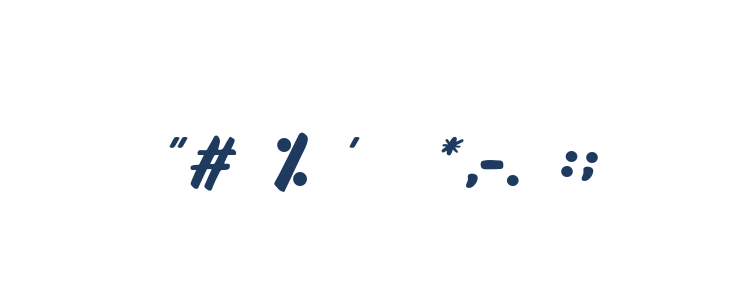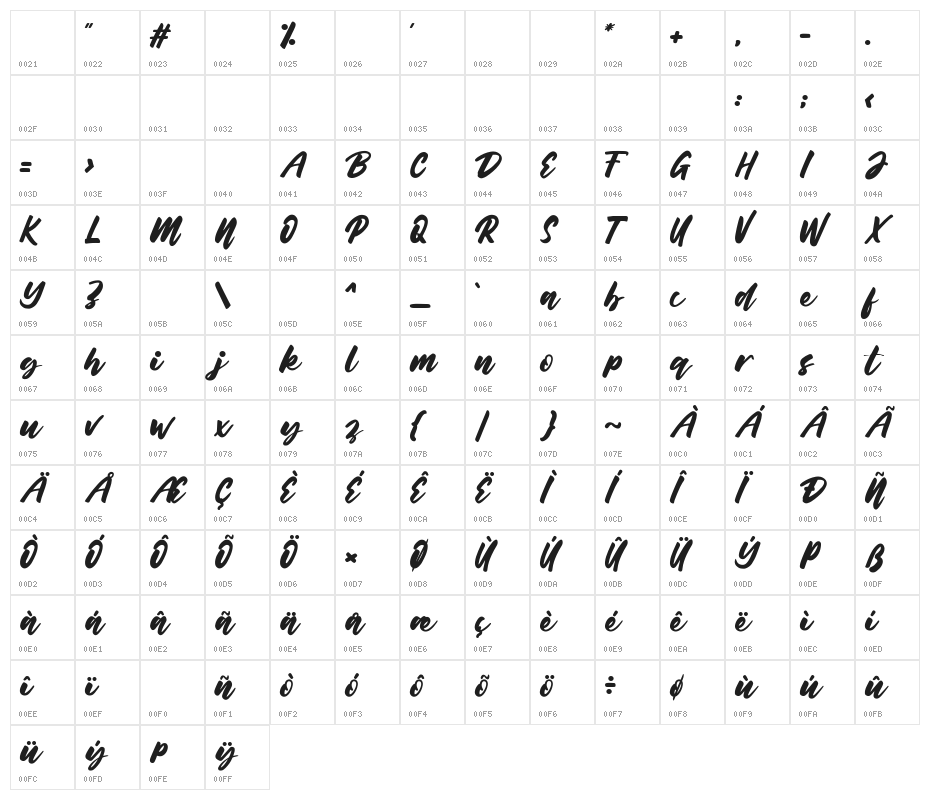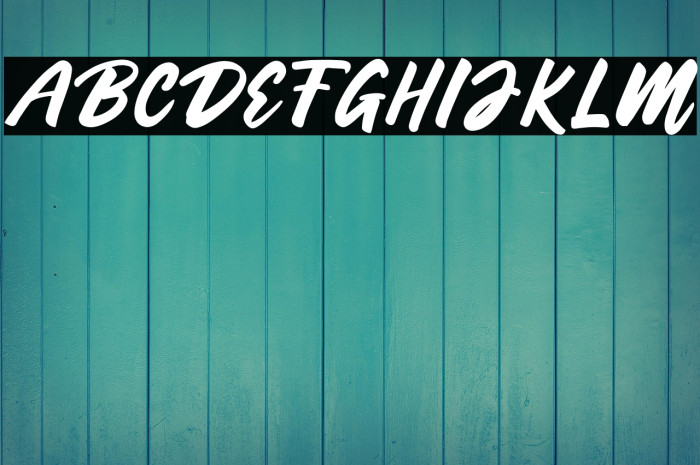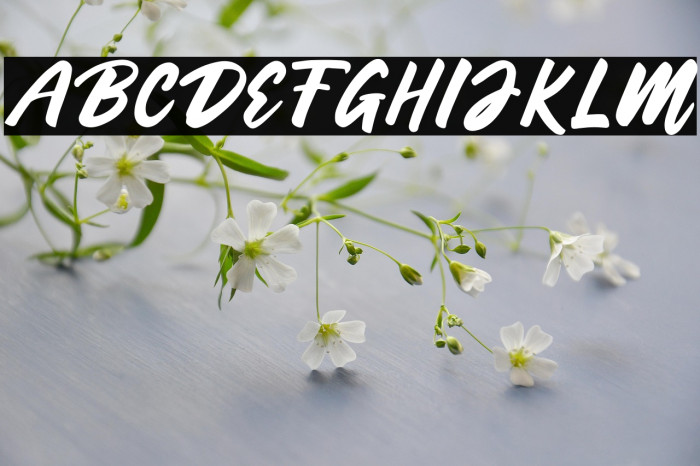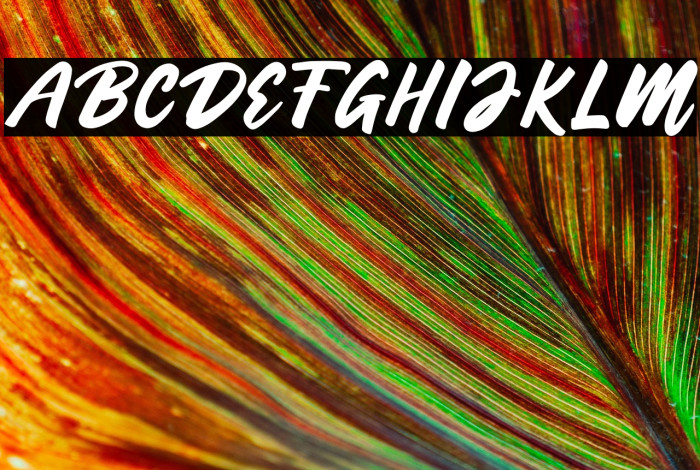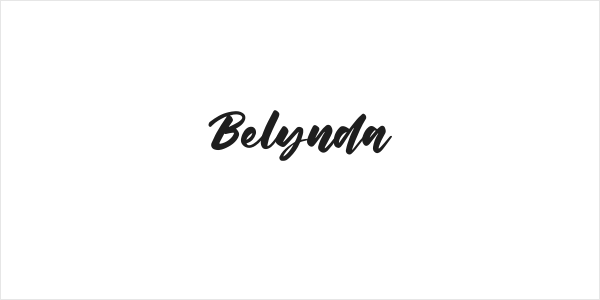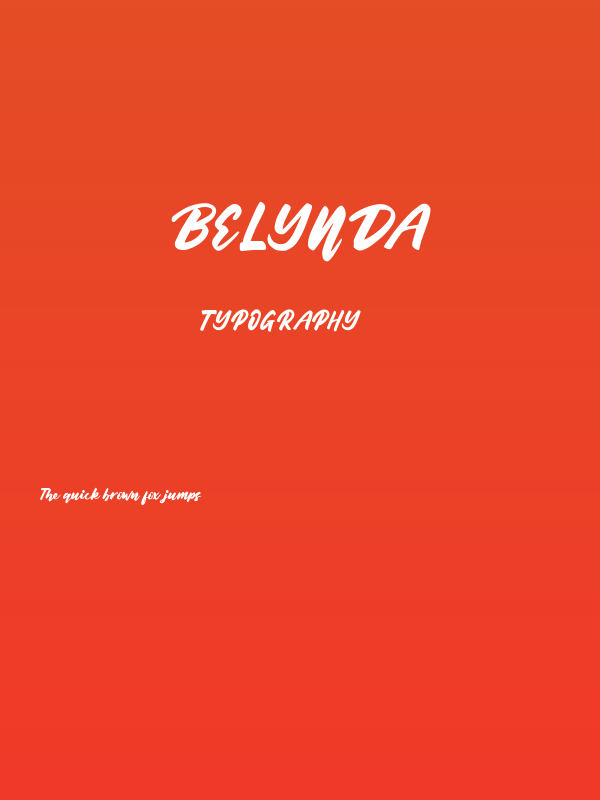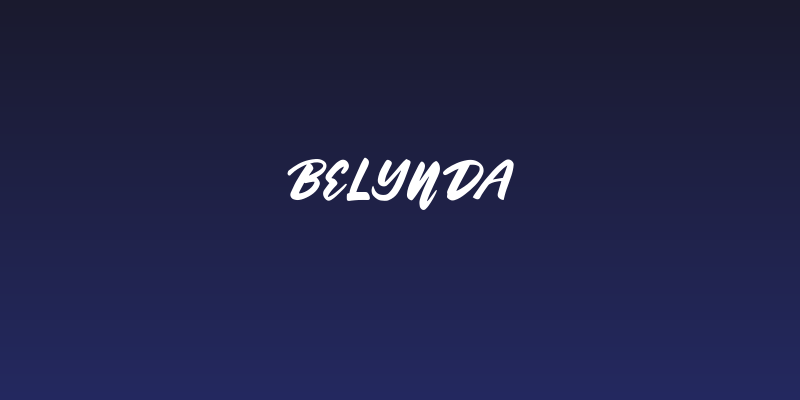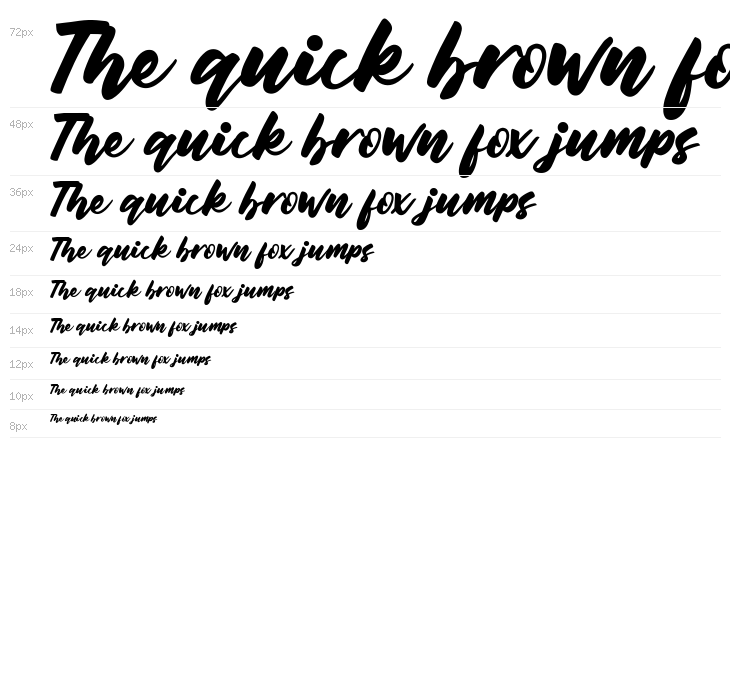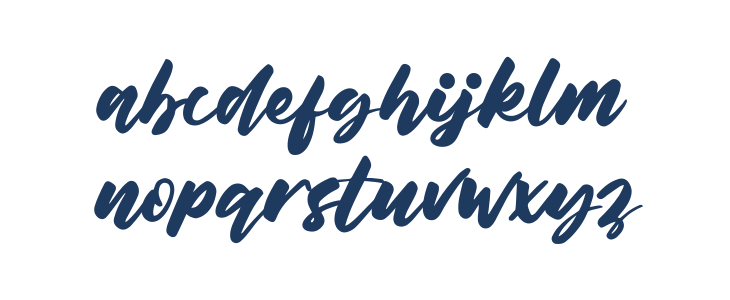
Belynda Font
Belynda Description
This font features a bold, cursive style with a strong, flowing script that exudes elegance and dynamism. The letters are connected, creating a seamless and fluid appearance, reminiscent of traditional calligraphy but with a modern twist. The strokes are thick and consistent, providing a sense of strength and confidence. The uppercase letters maintain a uniform height, while the lowercase letters have a slight slant, enhancing the cursive effect. Special characters are designed to match the overall aesthetic, ensuring a cohesive look across all text elements.